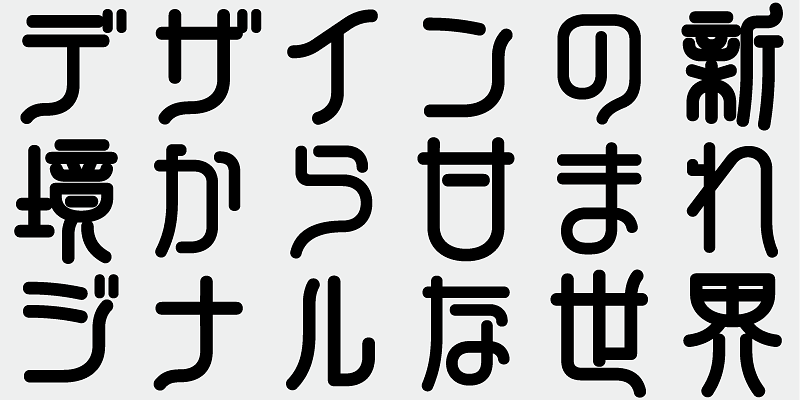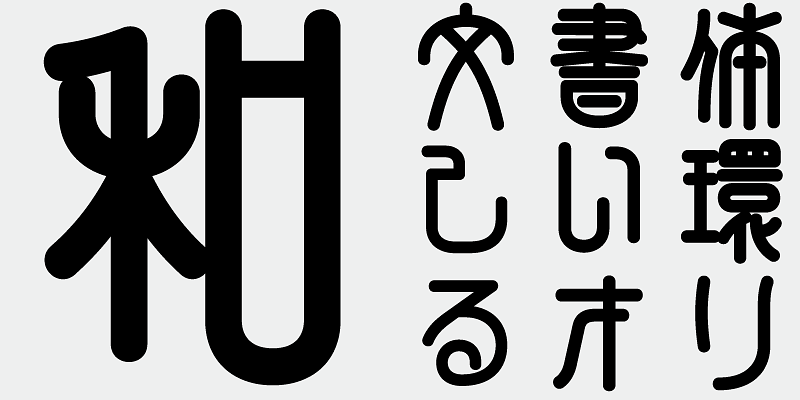
A modern interpretation of seal script with a casual stype. An easy-to-use Chinese-style typeface with a thick, charming design.
This font includes the top 1,000 kanji characters selected from usage frequency lists compiled by newspaper companies, publishers, and the National Institute for Japanese Language and Linguistics, plus 206 additional characters such as kana, alphanumerics, and carefully selected symbols and punctuation marks.